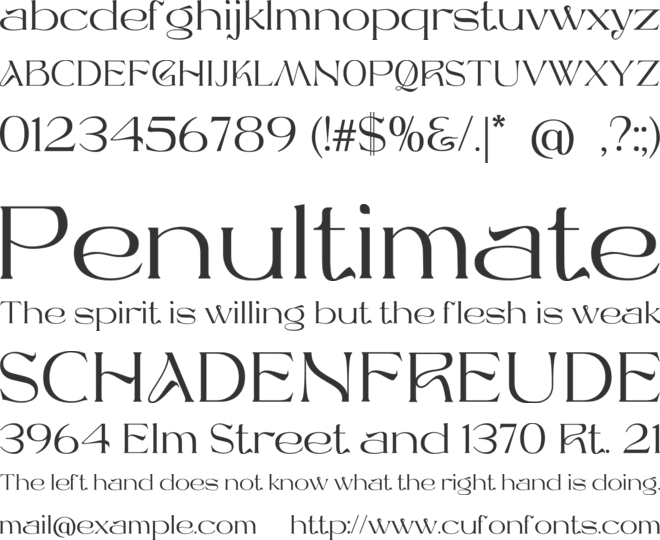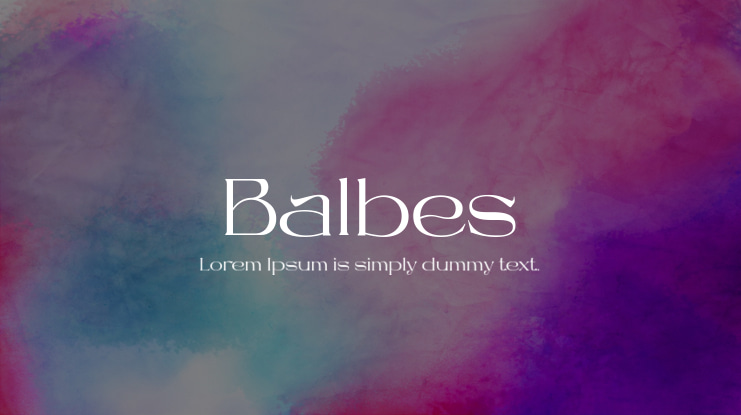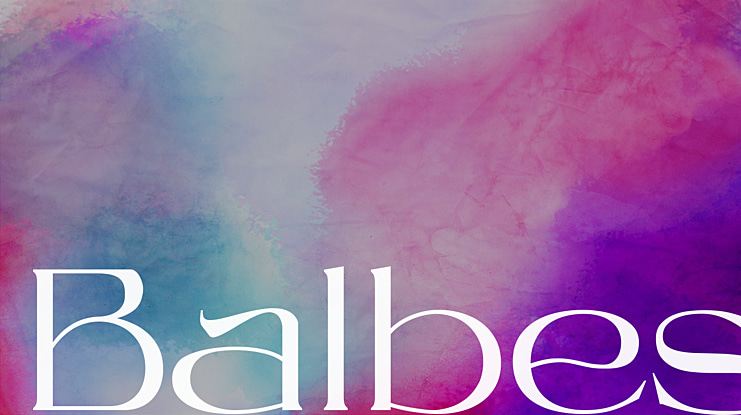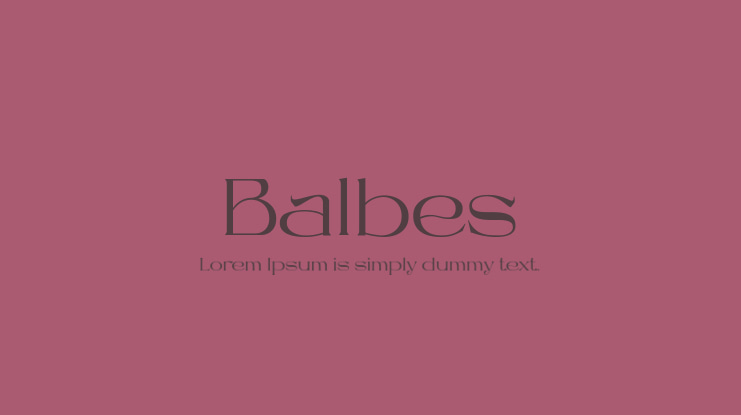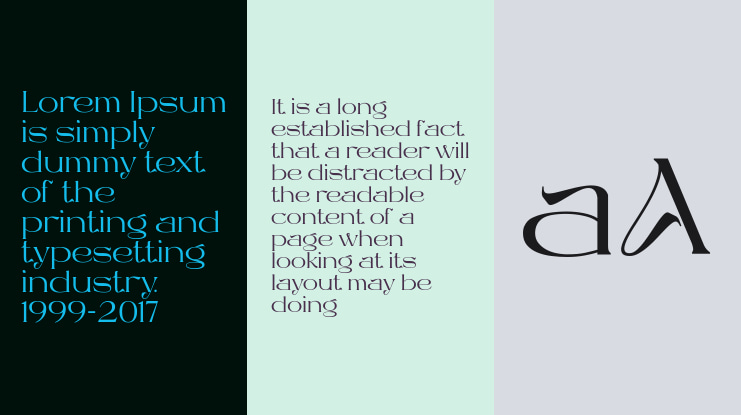
Balbes Font
It’s a serif display font that has a classic, feminine, and elegant style wrapped with a beautiful alternate stylist. There are two types of letters by activating stylistic alternates you will get a very contrasting feel than regular letters. It was also followed by the addition of swash, many ligatures, and many languages.